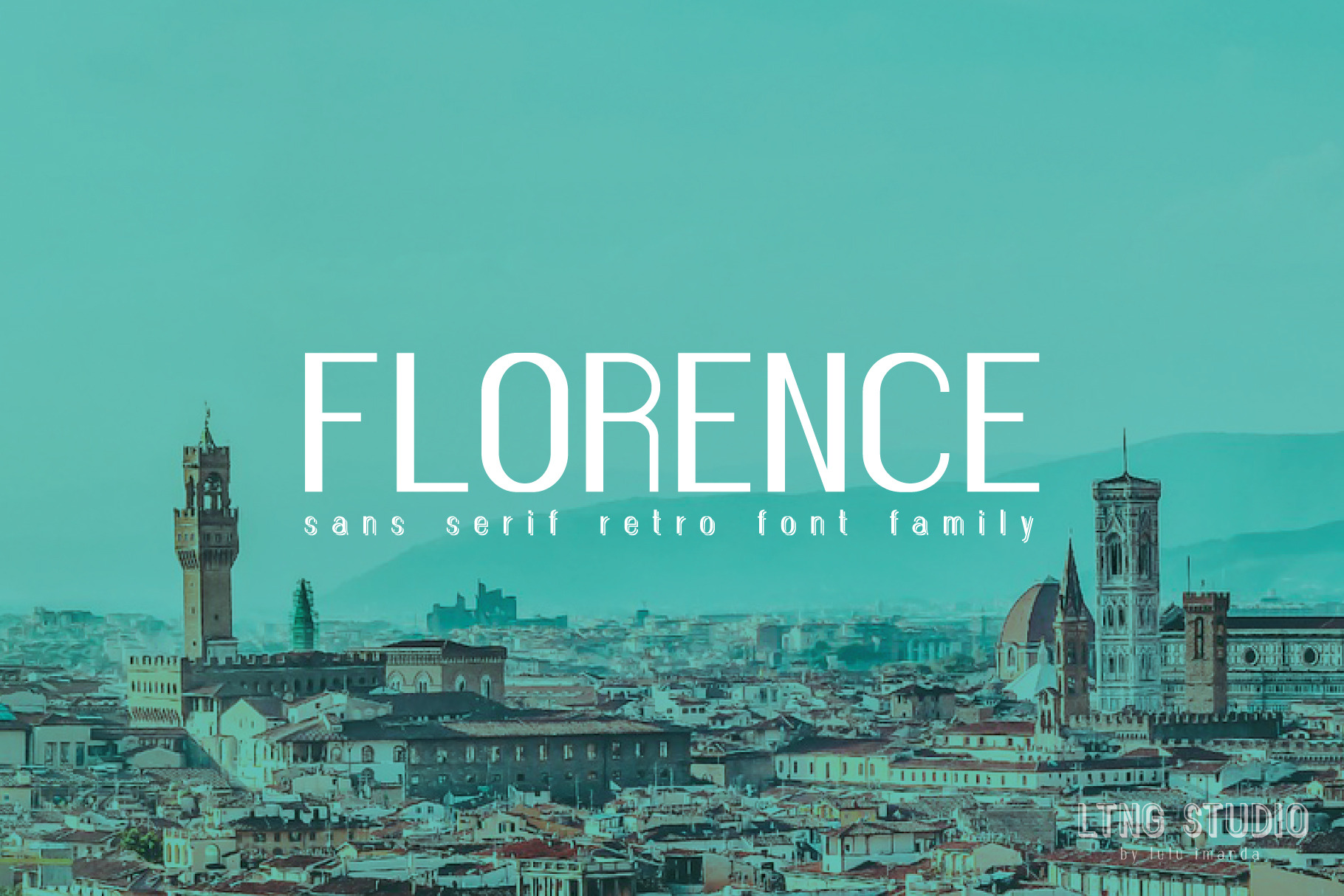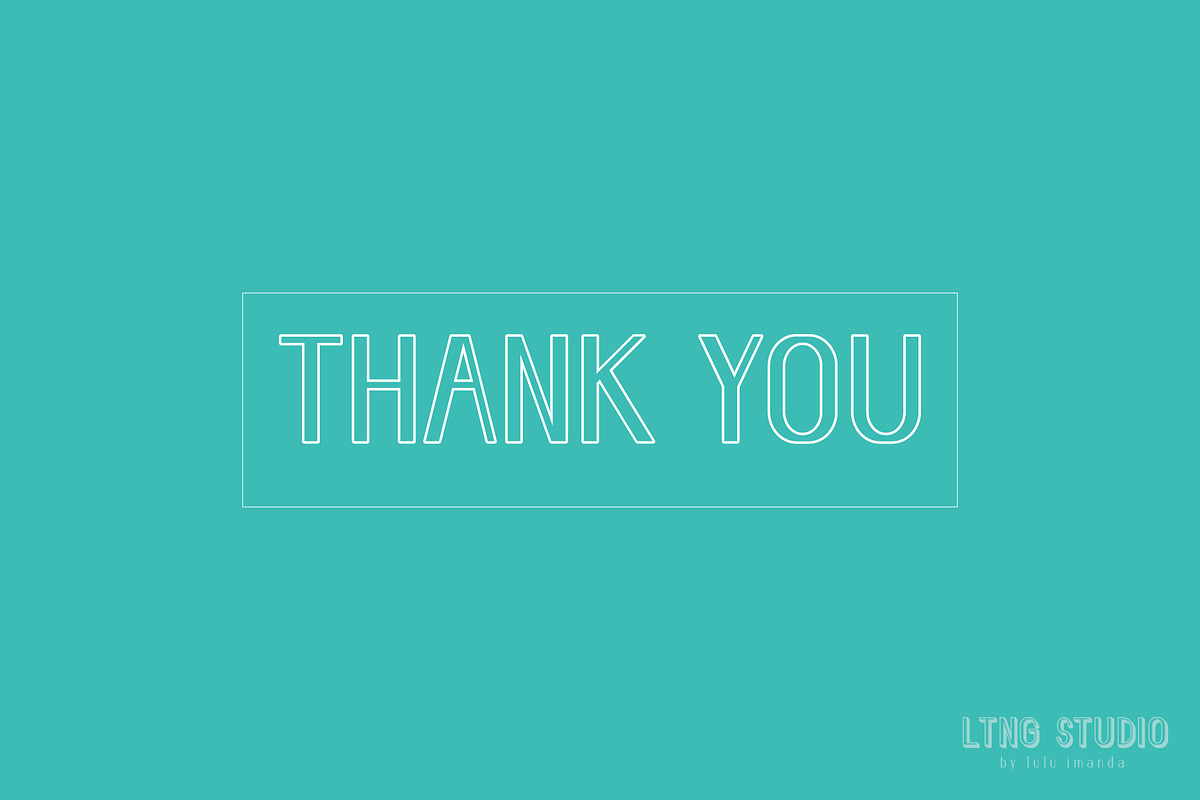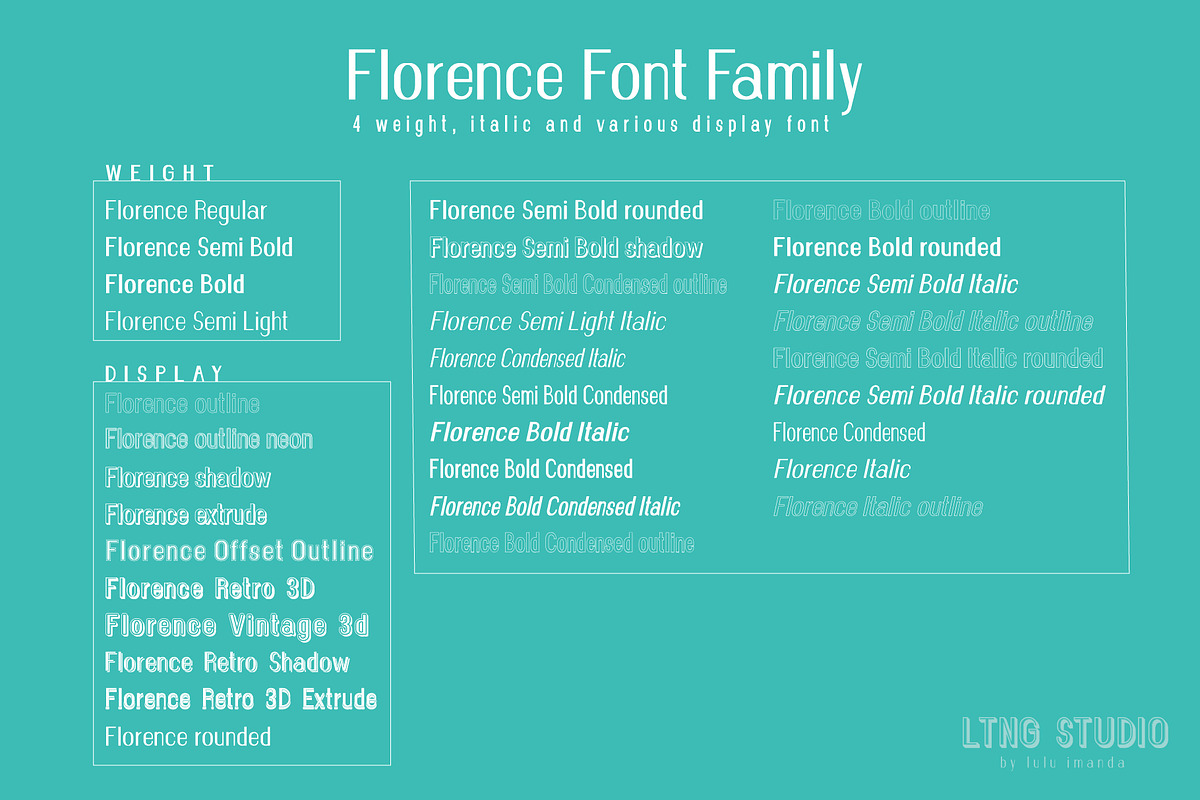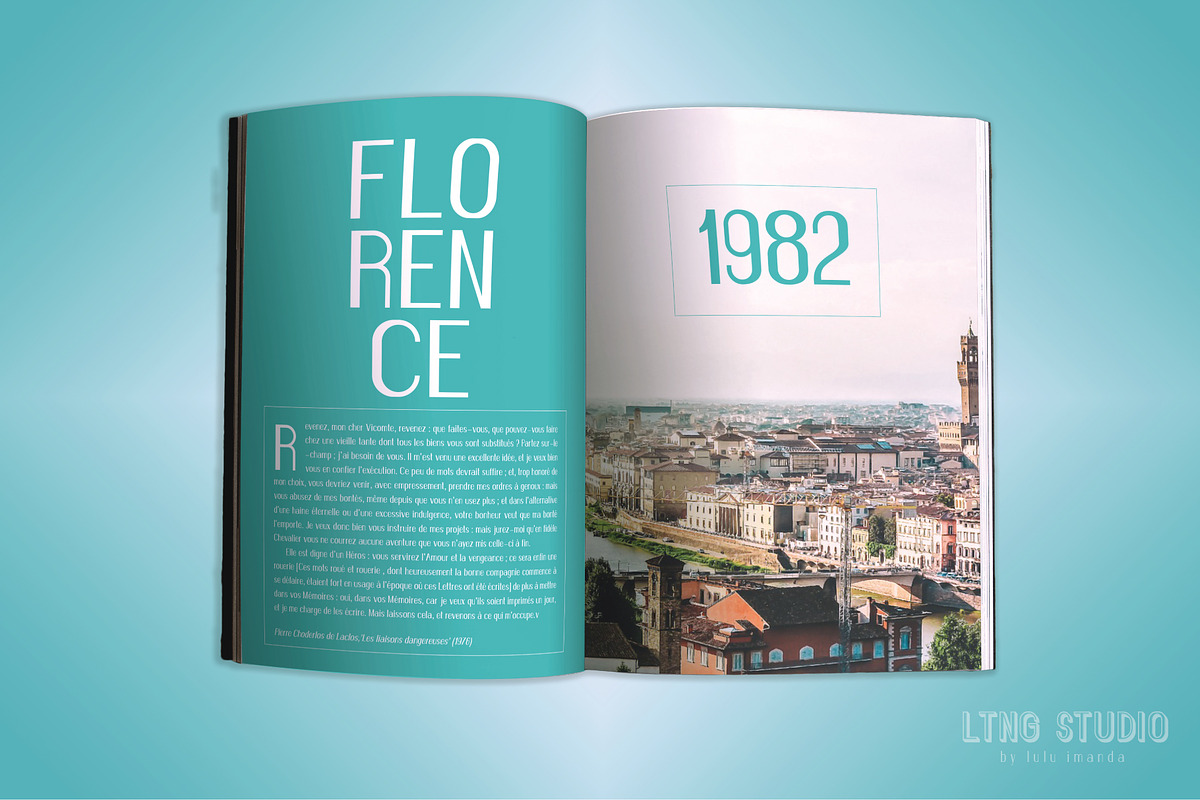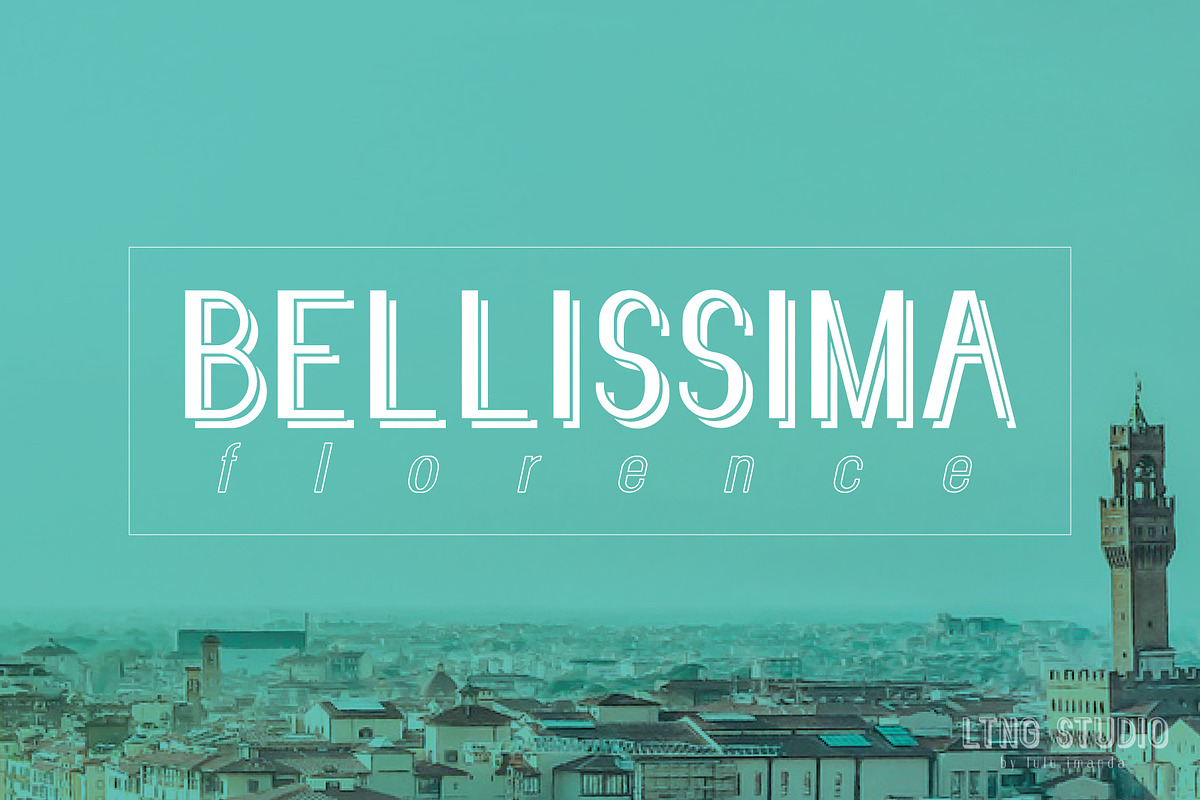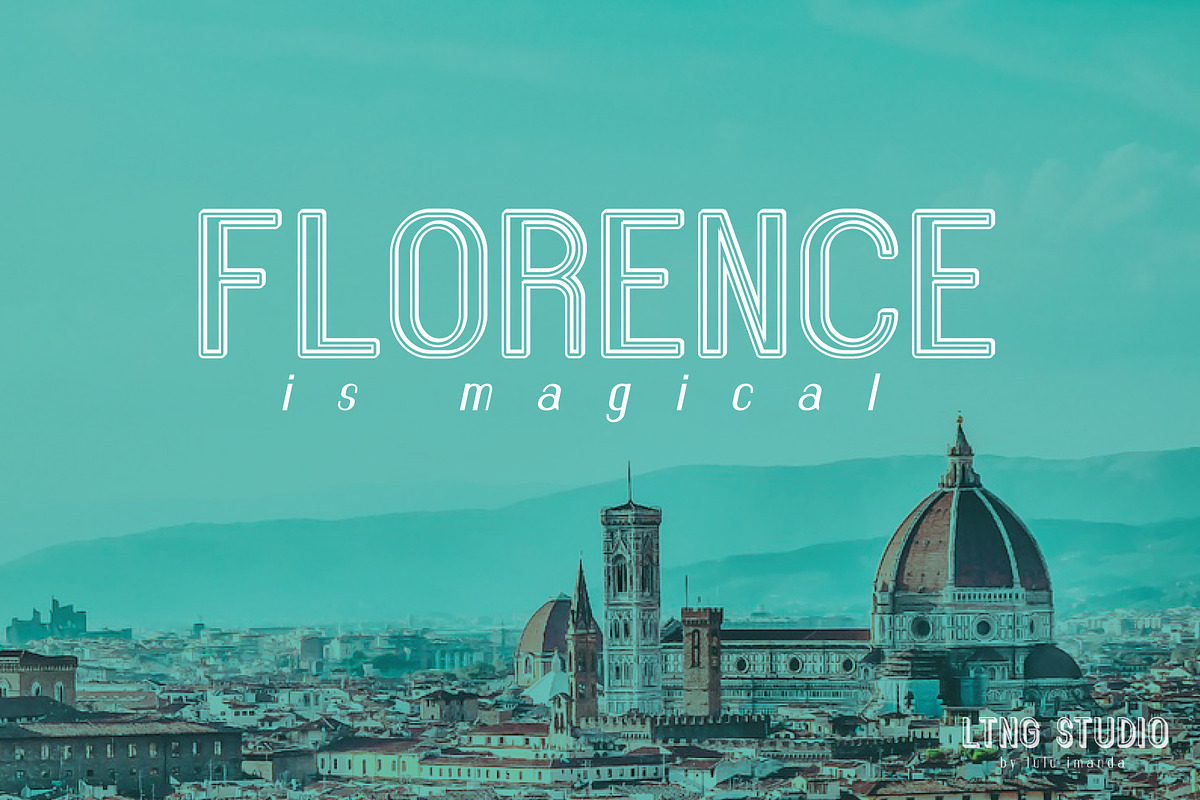
FLORENCE font family
FLORENCE is a unique sans serif retro font family with massive font family with 33 font families. An elegant font look with sharp edge and unique shapes into logos, magazine, wedding invitation, quotes, advertisements, poster, holiday cards and more. Create something beautiful today with FLORENCE font family.